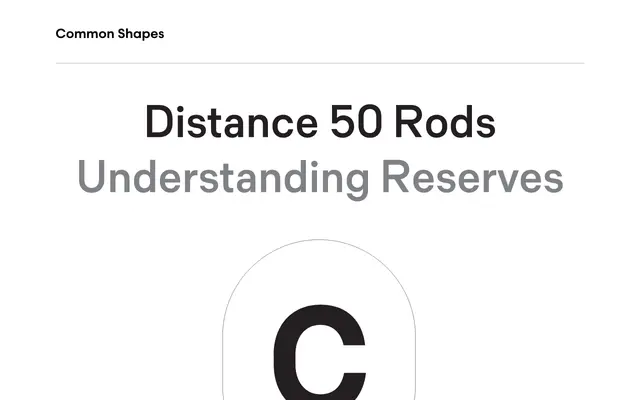
Common Shapes
Process Type Foundry · Eric Olson · 2025
A softened geometric sans by Eric Olson built around capsule and semi-sphere forms, continuing the geometric thread of his earlier Colfax.
Eric Olson's follow-up to Colfax refines an approach that is geometric in tone without being rigidly mechanical, using capsule and semi-sphere shapes as its organising principle. Six weights with matching italics make for twelve styles in total, and a single stylistic set lets users strip forms back even further for a more pared-down appearance. Its spare character suits casual editorial contexts and interfaces where a light typographic touch is preferred over assertiveness.
Built around capsule and semi-sphere shapes, Common Shapes is geometric in its underlying structure but deliberately avoids strict mechanical construction, placing it in a softened geometric sans tradition.